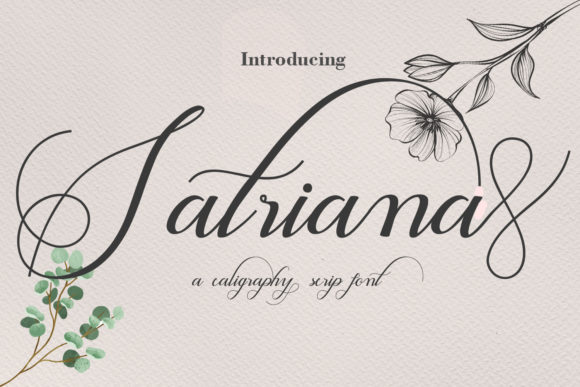
Unleash your creativity with Satriana Font, a captivating script font that embodies elegance and modernity. This exquisite creation by Belovestudio is a visual masterpiece that will transform your designs into works of art.
With its classy and modern aesthetic, Satriana Font is the perfect choice for a wide range of projects. From logos and branding to invitations and stationery, this font adds a touch of sophistication to any design. Whether you're creating social media posts or wedding designs, Satriana Font will elevate your work and make a lasting impression.
Immerse yourself in the world of Satriana Font and discover its endless possibilities. Use it to design personalized invitations that capture the essence of your special occasion. Create stunning logos that exude professionalism and creativity. Elevate your branding materials with a font that reflects your unique style.
Satriana Font's versatility extends beyond logos and branding. It's the perfect choice for stationery that demands attention. Its elegant lines and modern touch make it ideal for letterheads, business cards, and envelopes.
Satriana Font is the ultimate choice for designers who value originality and craftsmanship. With its timeless appeal and endless applications, it will quickly become your go-to font for any project that requires a touch of sophistication.
Don't settle for ordinary fonts. Choose Satriana Font and embark on a creative journey that will leave your audience spellbound. Embrace the beauty of handwritten calligraphy and make your designs stand out from the crowd.